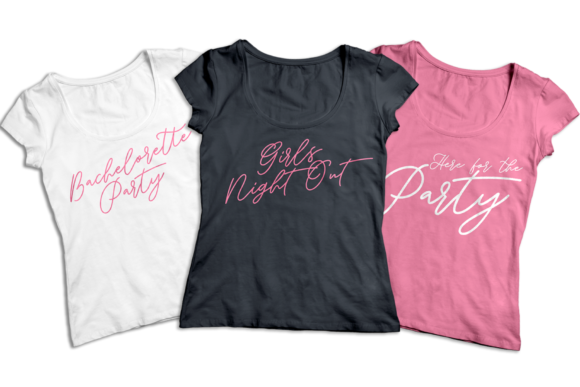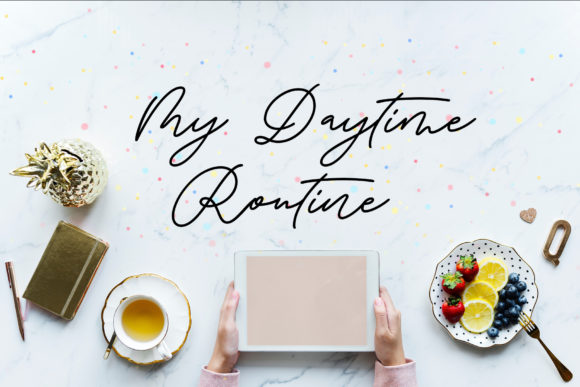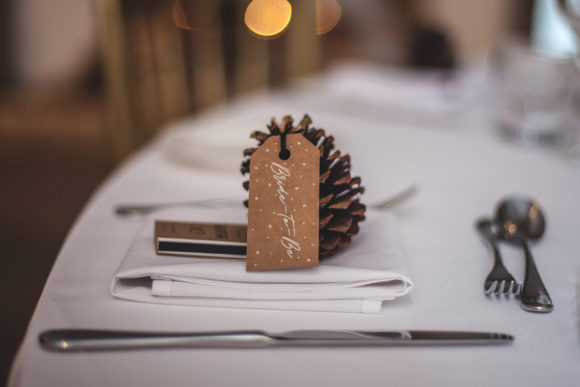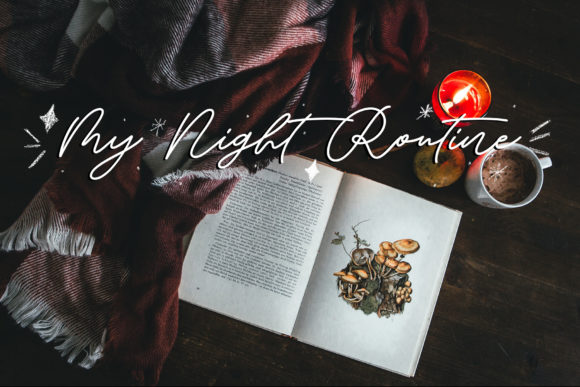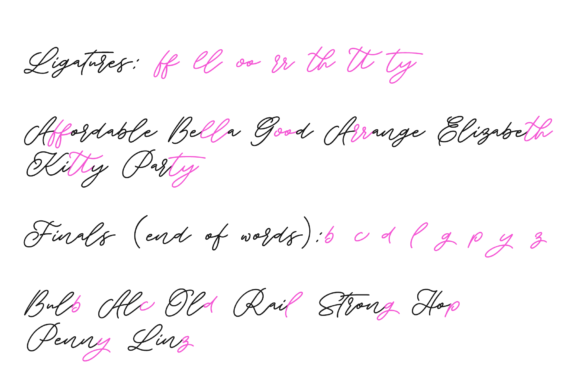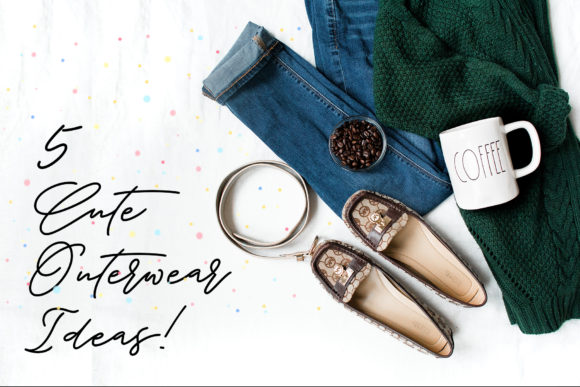
Introduction to Saturday Champagne Font
Have you ever been in the midst of a creative project, staring at a blank canvas or a blank document, searching for the perfect font to bring your idea to life? That’s exactly where I was a few weeks ago, working on a design for a client’s special event, when I stumbled upon the Saturday Champagne Font.
This stunning script font is more than just a pretty face; it’s a game-changer for designers looking to elevate their designs with a touch of elegance and sophistication. With its high-quality design and transparent background, it’s the perfect addition to any design project, from wedding invitations to restaurant menus.
Key Features of Saturday Champagne Font
- Unique, elegant design suitable for creative projects and special occasions, including weddings and anniversaries.
- High-quality font with transparent background, ideal for use on images or graphics.
- Large character set with extended Latin support, making it suitable for a wide range of languages.
- Resolution-independent design, ensuring crisp and clear text output at any resolution.
- Perfect for use on invitations, posters, and other promotional materials where a touch of elegance is desired.
Honest Review: Saturday Champagne Font
I recently stumbled upon the Saturday Champagne Font, and I must say it’s a delightful addition to any creative project. As a designer, I’m always on the lookout for high-quality fonts that can elevate my designs.
- High-quality design: The Saturday Champagne Font is a beautifully crafted font with a unique and elegant feel.
- Transparent background: This font is perfect for designers who want to create visually appealing designs with a transparent background.
- Creative possibilities: The Saturday Champagne Font is versatile and can be used in a variety of creative projects, from wedding invitations to product branding.
- Limited font weights: The Saturday Champagne Font comes in only a few font weights, which may limit its use in certain design scenarios.
- No italics: Unfortunately, the font does not come in italics, which may be a drawback for designers who prefer to use italics in their designs.
Overall, the Saturday Champagne Font is a great addition to any designer’s toolkit. While it has some limitations, its high-quality design and versatility make it a valuable resource for any creative project.
How to Use Saturday Champagne Font
The Saturday Champagne Font is a unique and elegant design resource perfect for any creative project. This high-quality font is available for free download and features a transparent background, making it versatile for various applications.
Tips for Getting the Most Out of Saturday Champagne Font
To get the most out of the Saturday Champagne Font, use it in combination with other design elements to create a unique and eye-catching design. Experiment with different font sizes, colors, and layouts to achieve the desired effect.
The Saturday Champagne Font is ideal for use in wedding invitations, party invitations, and other celebratory designs. Its elegant and sophisticated design makes it perfect for formal events and special occasions.